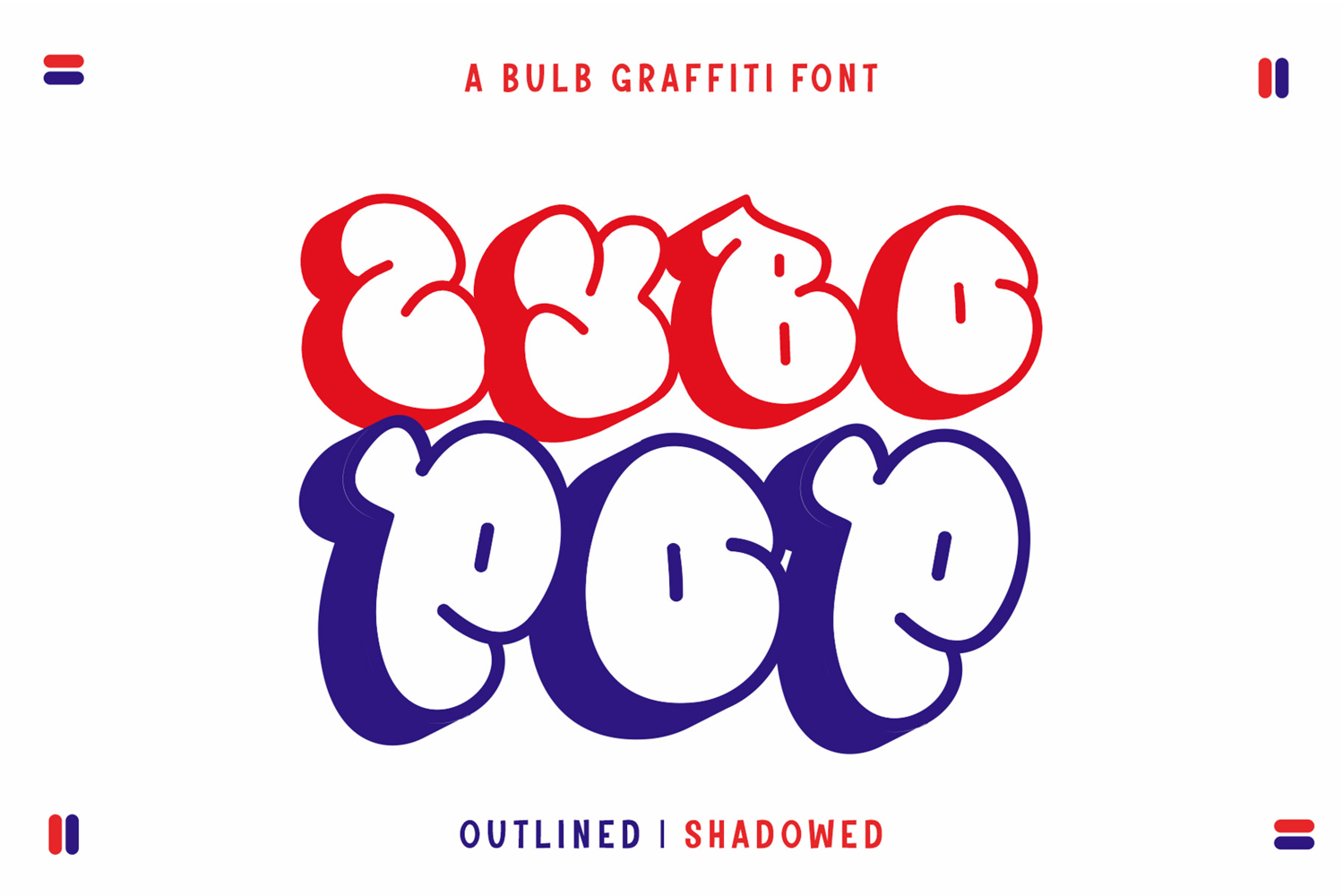
Zybo Pop - Bulb Throw-Up Graffiti Font
Zybo Pop is a vibrant bulb-inspired graffiti font that fuses street art with a bold, eye-catching design. Available in solid and outline styles, Zybo Pop brings an electrifying pop of energy to any creative project, making it the perfect choice for designs that demand attention.
✨ Striking Style: With its playful bulb-like lettering and unique graffiti aesthetic, Zybo Pop shines in solid and outline versions, allowing for flexibility in creating standout effects.
🎨 Versatile Options: Whether used in solid for a powerful impact or outline for a sleek, open look, Zybo Pop’s dual styles adapt easily to various design needs, making it perfect for posters, social media graphics, or brand logos.
Zybo Pop adds a fun and dynamic edge to your designs, channeling the spirit of urban art with a fresh, lively twist.